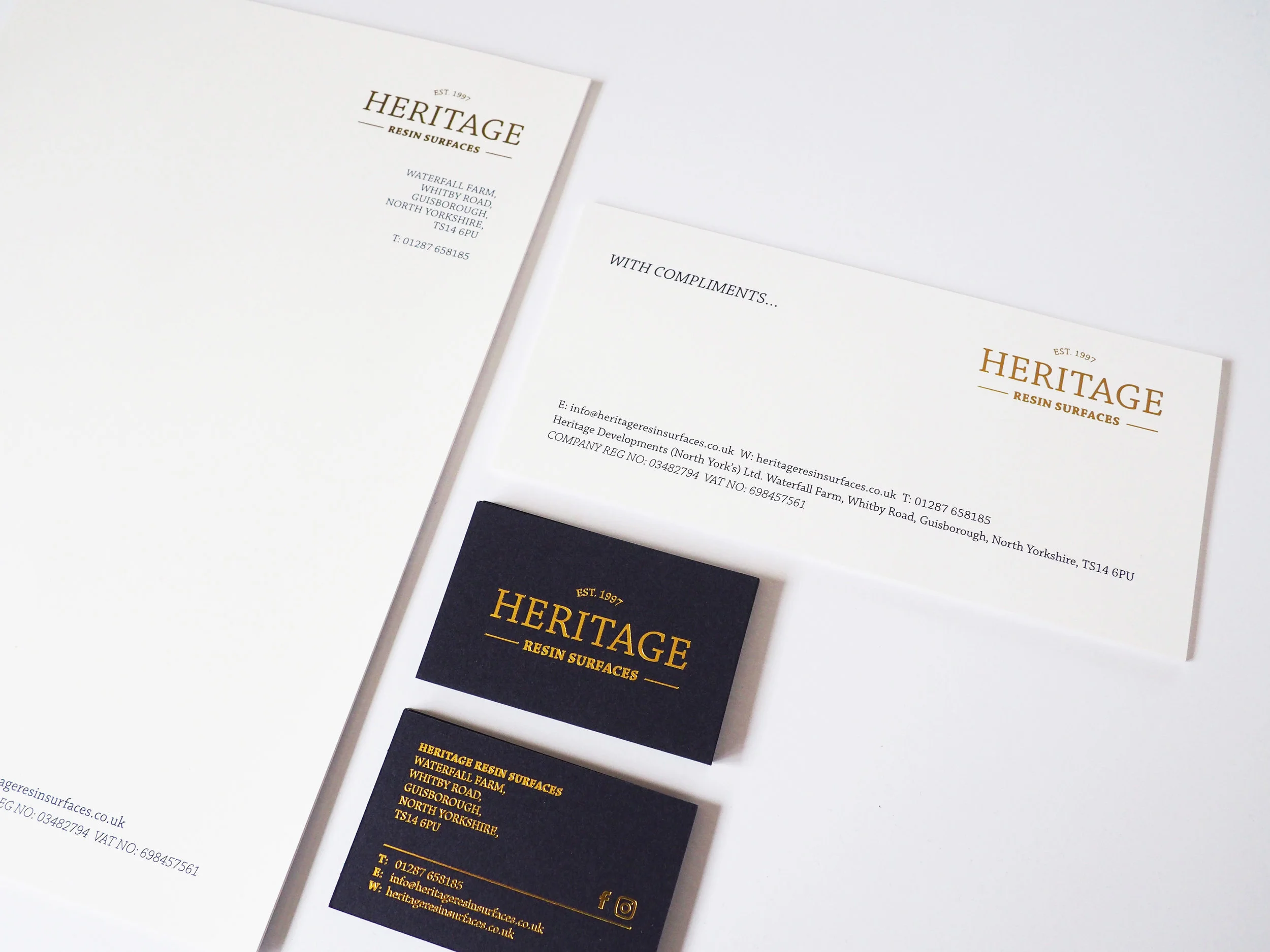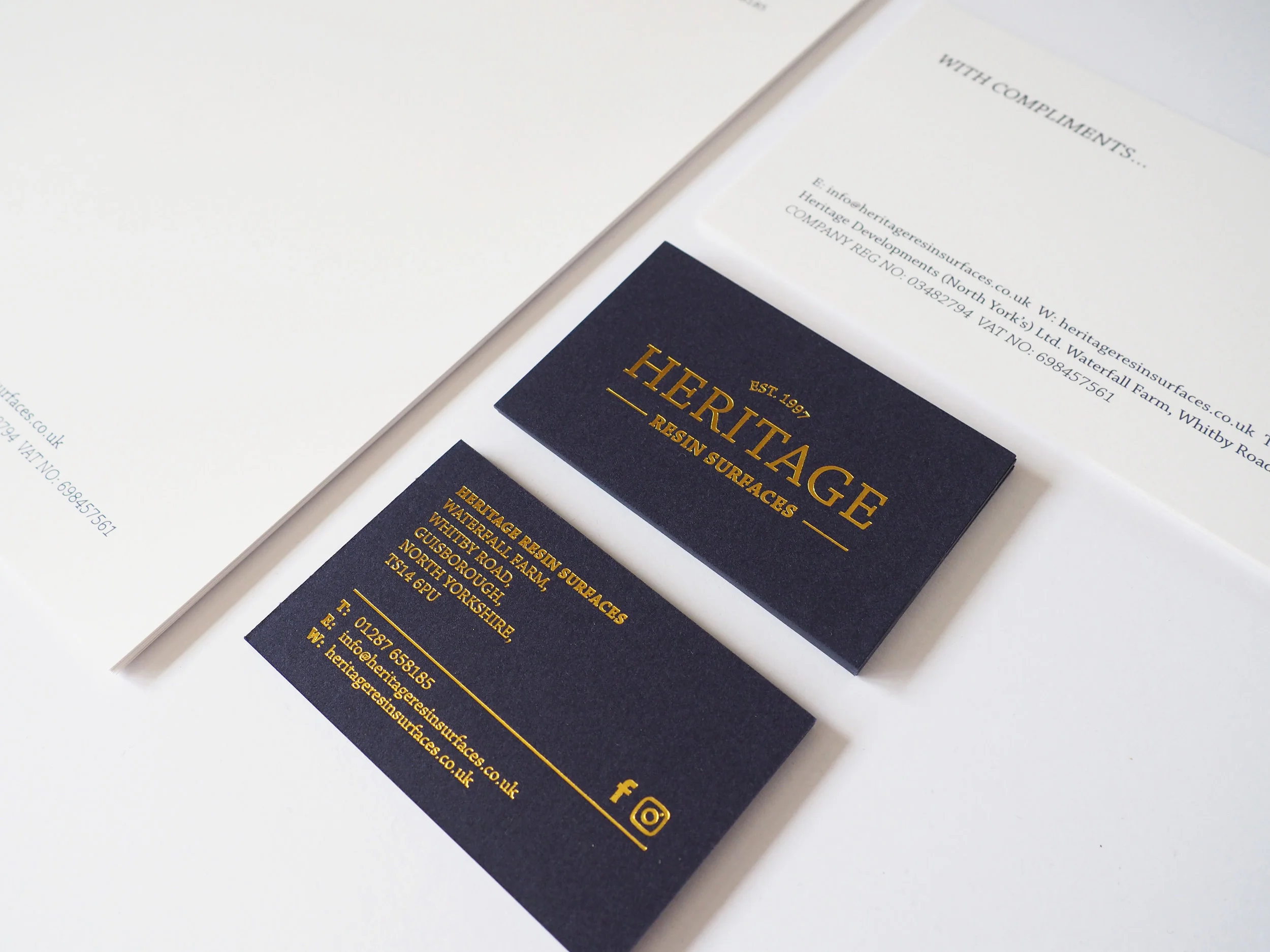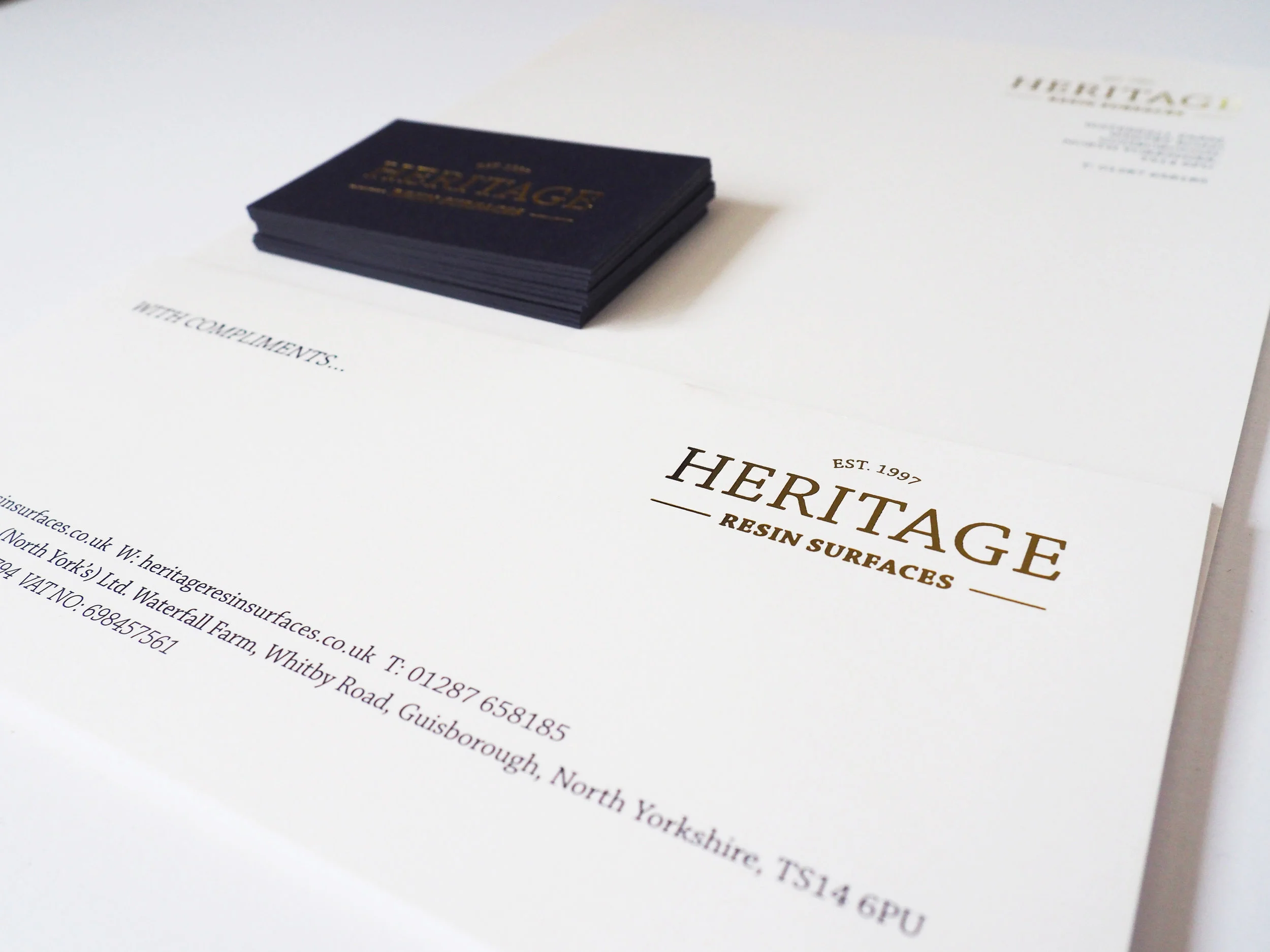
I have recently done the branding for Heritage Resin Surfaces, which was such an exciting project. The subsidiary part of Heritage Developments Ltd, the brand had to be adaptable to the other sides of the company in the future.
I have created a clear logo using a serif typeface to make the company seem more professional and adding an established mark to the logo. This is because the company wanted to emphasise the quality of the product, the professional service they offer and the time they have put into the business.
The budge allowed for some beautiful features such as a lovely paper stock and gold foil printing on the marketing material which I think looks amazing and defiantly stands out a mile! It defiantly says quality!